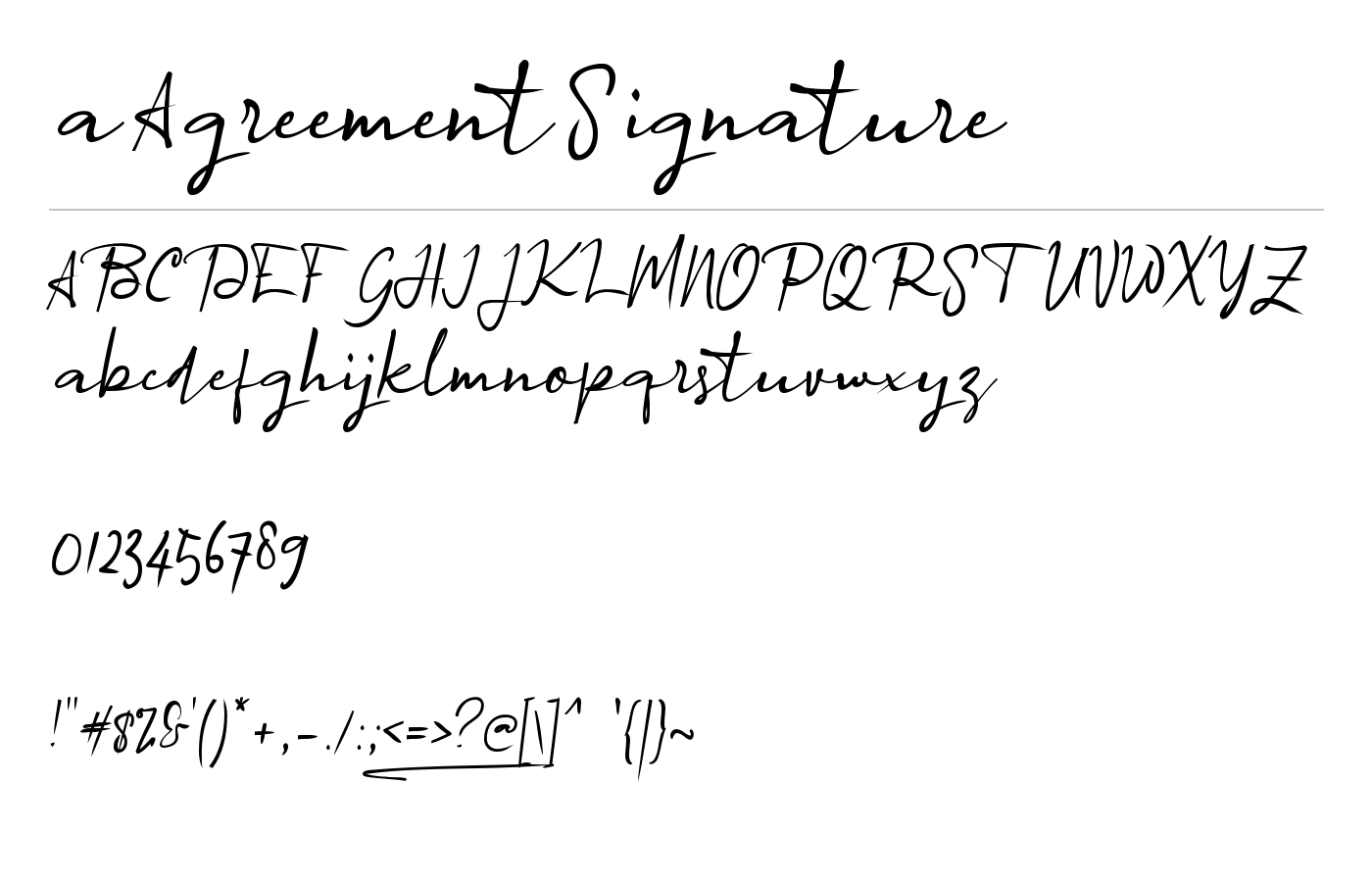
Agreement Signature is a delicate, handwritten script font that mimics casual yet elegant handwriting, featuring slender, slightly irregular strokes with a natural flow. Its light weight and airy letterforms convey a personal, authentic feel, making it ideal for branding, invitations, and any design that benefits from a refined, human touch. This font works wonderfully for projects seeking a sophisticated but approachable style, such as fashion logos or creative packaging.
a Agreement Signature Font
About a Agreement Signature Font